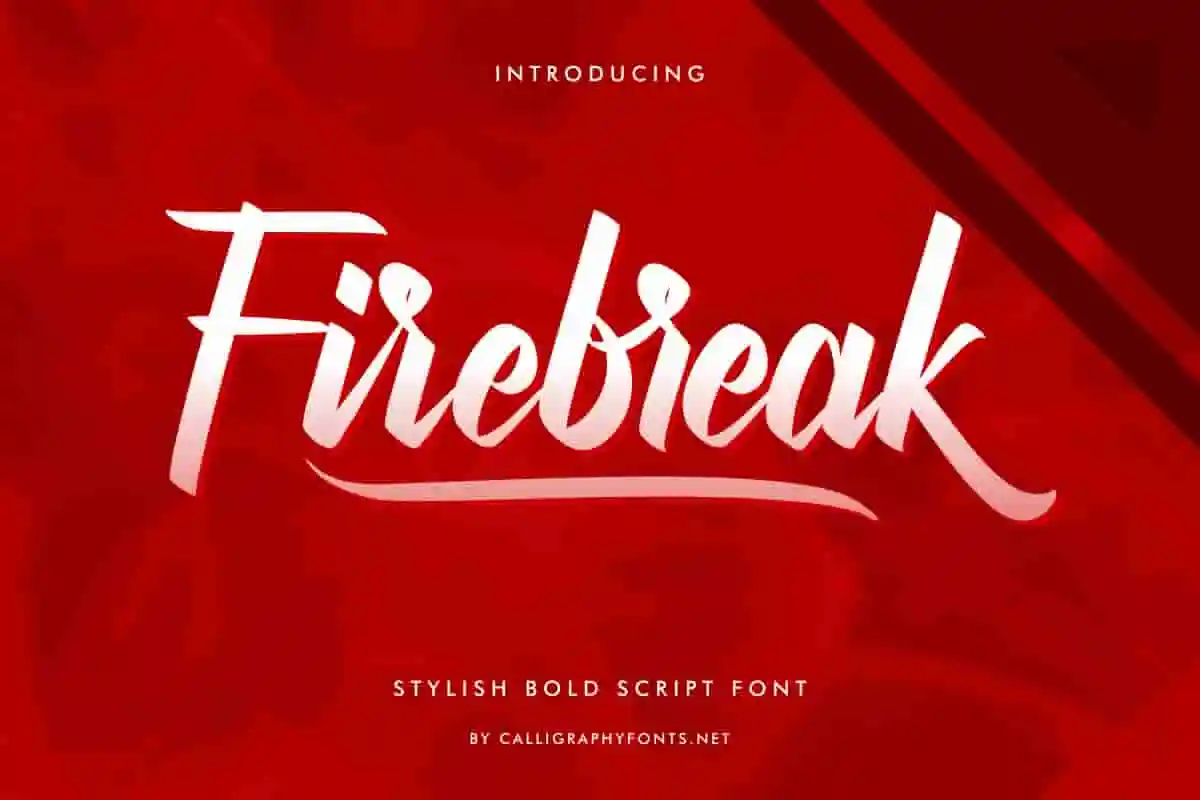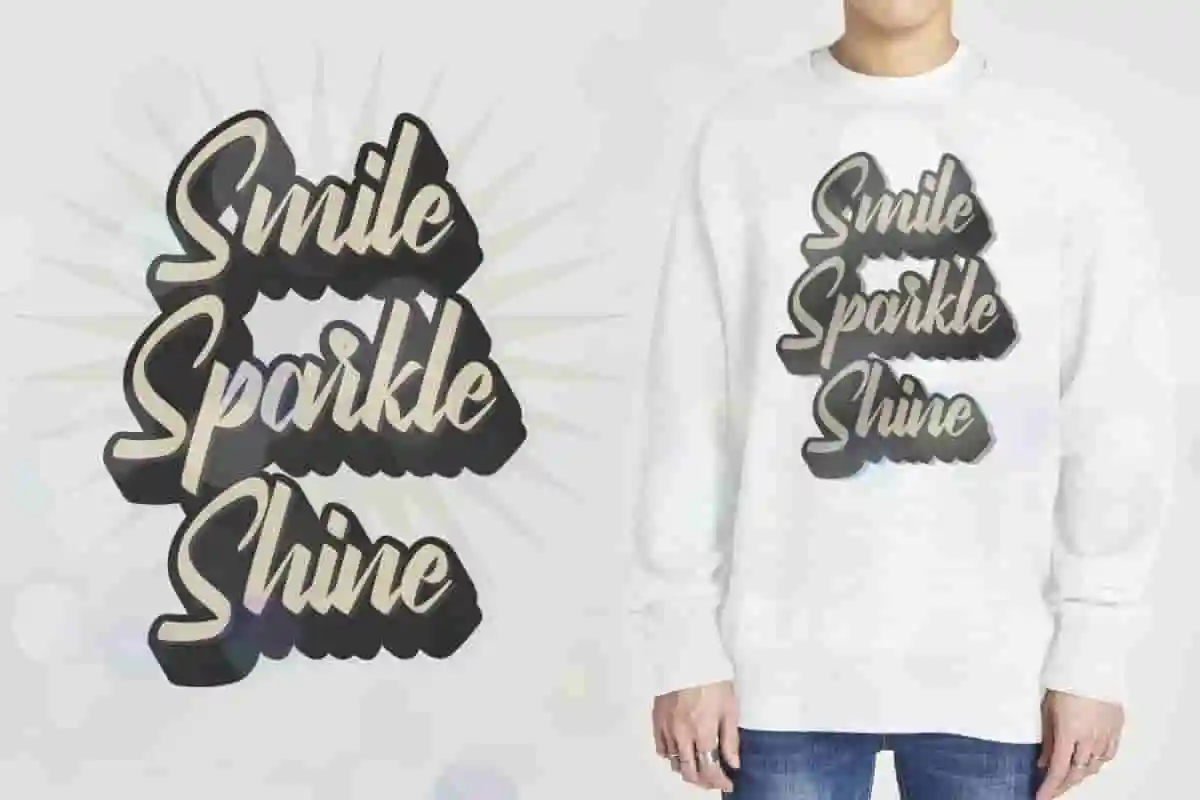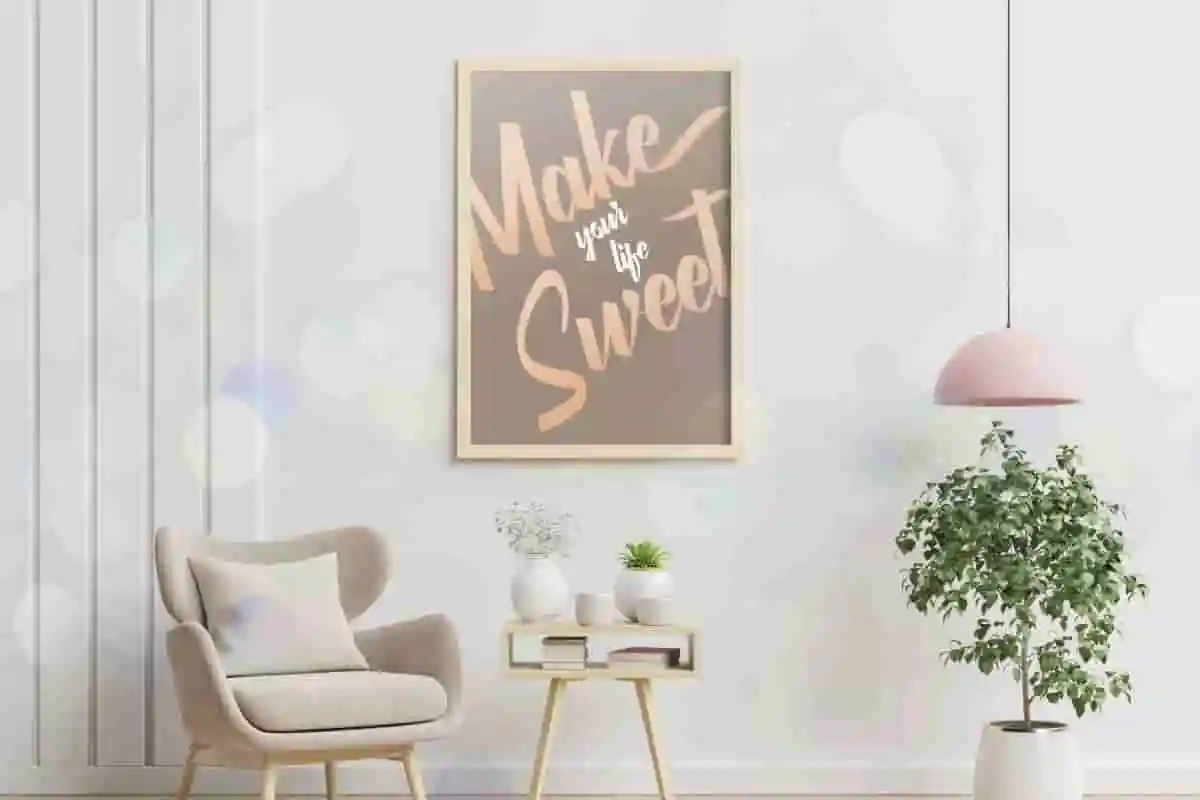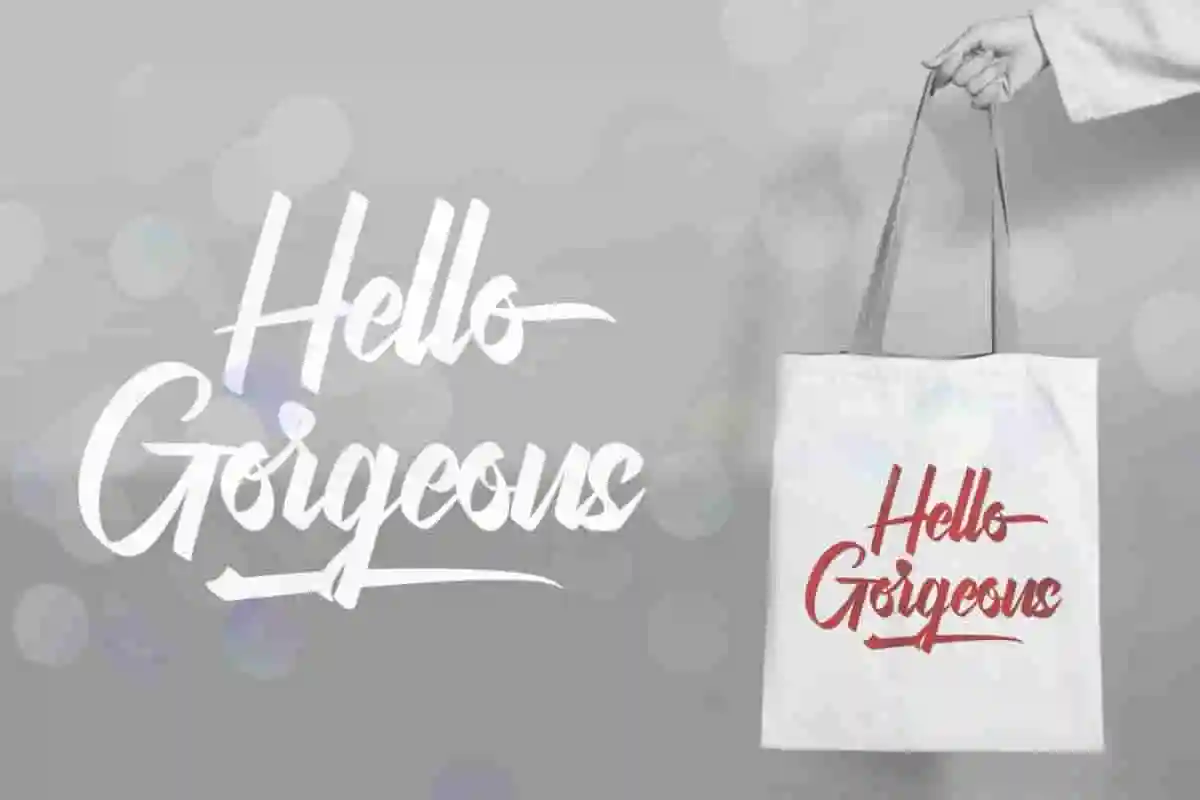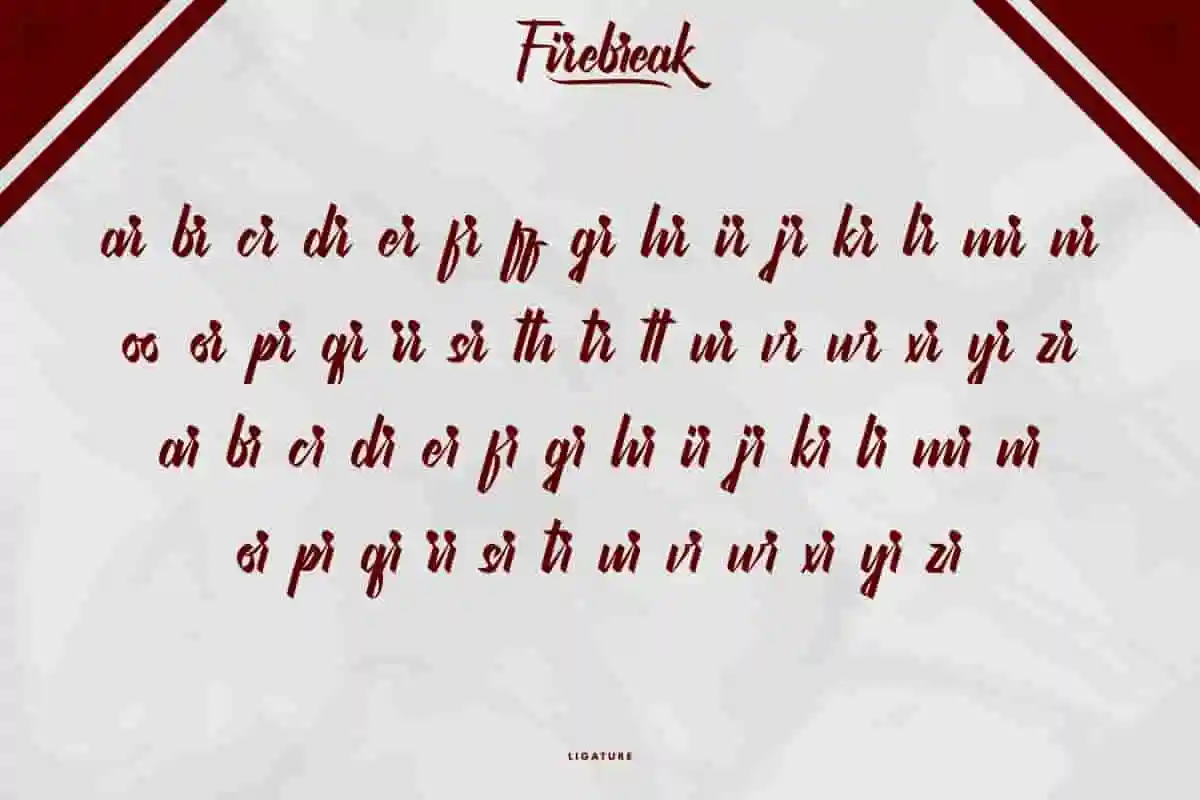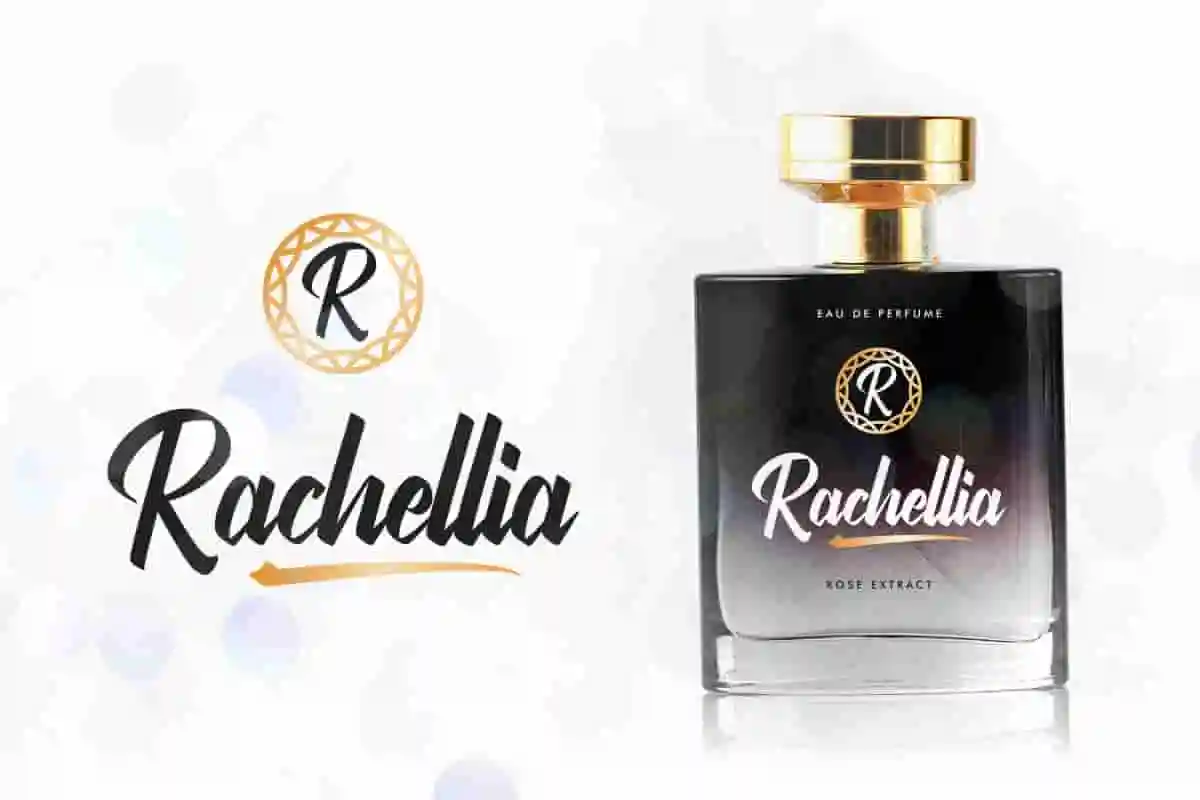
Firebreak Font
Firebreak Font is a bold handmade calligraphy script font by CalligraphyFonts.net. Download Firebreak Font for any commercial purposes now!
Firebreak Font is a bold handmade calligraphy script font. It has special looks that are beautiful, classic, elegant, luxury, lettering and sophisticated brush font.